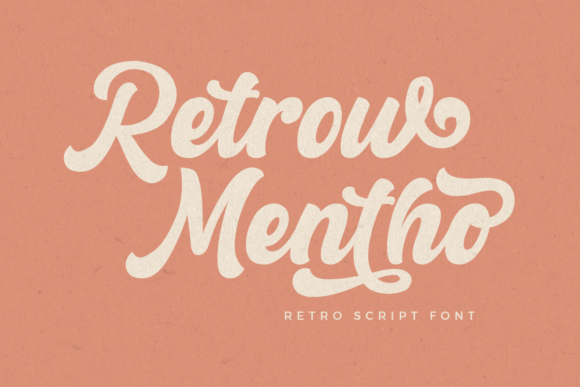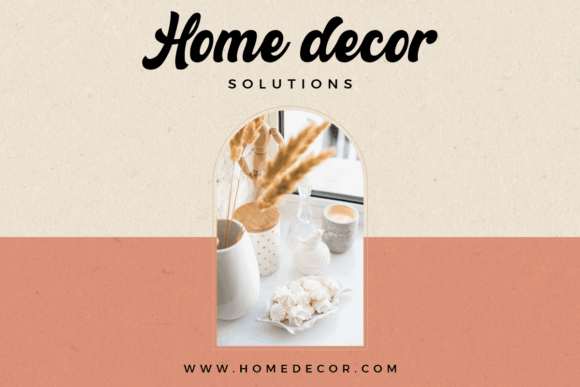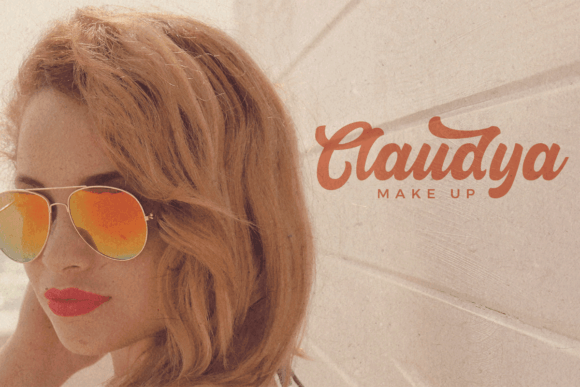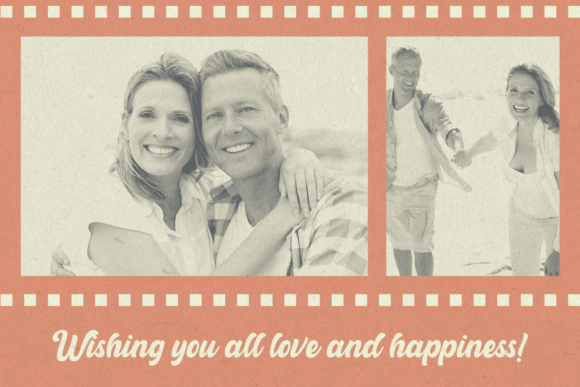
Retrow Mentho Font
About the Retrow Mentho Font
We are excited to introduce Retrow Mentho Font, a must-have typeface for any serious designer. Retrow Mentho is a beautiful and bold handwritten font created to give your headlines and logotypes a retro touch. Inspired by the 80s’ typography, this font will be perfect for vintage travel and lifestyle designs.
Retrow Mentho’s bold, playful strokes make it ideal for headlines, logos, and short, impactful text within vintage-inspired branding or packaging designs. It works exceptionally well for projects evoking a sense of nostalgia or retro-cool, such as travel brochures, posters for music festivals, or apparel labels. Avoid using it for large bodies of text or UI elements; its highly stylized nature compromises readability in extended use.
Pairing Retrow Mentho effectively requires a contrasting typeface to balance its strong personality. A clean sans-serif like Montserrat or a neutral serif such as Lora would provide excellent contrast and readability for supporting text. For a more playful approach, consider pairing it with a geometric sans-serif like Futura or a complementary script font with a less pronounced stroke weight.
The overall personality of Retrow Mentho is bold and nostalgic, yet friendly and approachable. Its retro styling offers a distinct visual appeal, perfectly suited for brands aiming for a vintage yet modern feel.
Retrow Mentho Font Usage Examples
Retrow Mentho Font Example